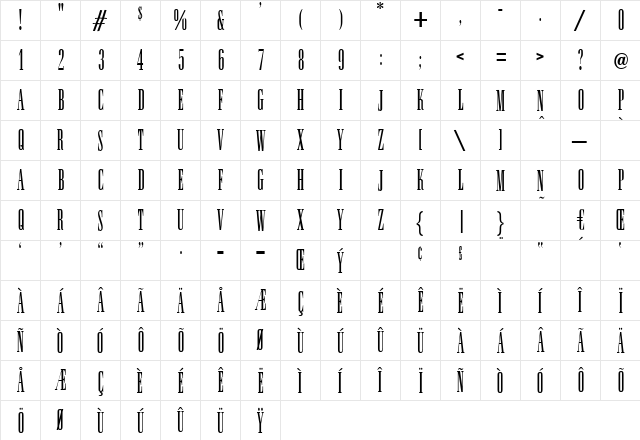
Charmeur Regular
Design Context for Charmeur Typeface
Charmeur offers clean, dependable letterforms without strong stylistic allegiance, making it a practical choice for designers who need flexibility.
Pro Tip: Use Charmeur in both headline and body roles to test its range before committing to a single application.